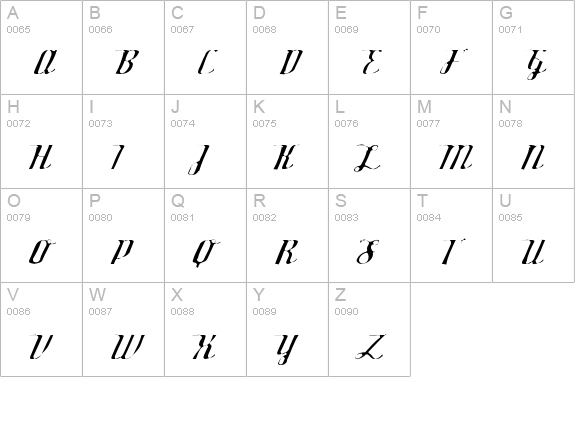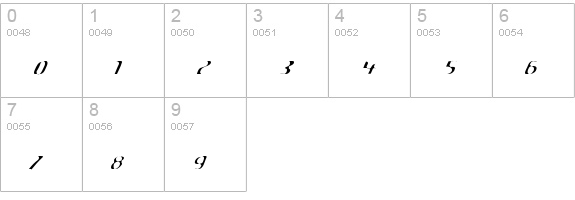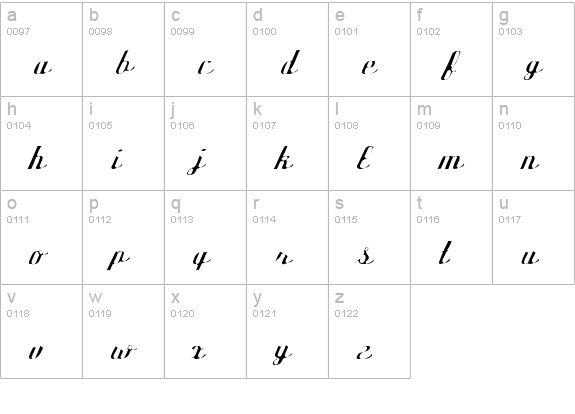
Deftone Stylus Gaunt Font Details
Deftone Stylus Gaunt is a sleek and modern font that exudes sophistication and elegance. Its slender and stylish letterforms make it perfect for a wide range of design projects, from branding to packaging to editorial work. This font strikes the perfect balance between being refined and eye-catching, making it a versatile choice for both digital and print applications. The best part? Deftone Stylus Gaunt is available for free download at FontsMarket.com. This means you can add this stunning font to your collection without having to spend a dime. Whether you're a seasoned designer looking to refresh your font library or a novice designer exploring new typographic styles, Deftone Stylus Gaunt is a must-have addition that will elevate your projects to a whole new level. Download it now and start creating beautiful designs with this exquisite typeface.